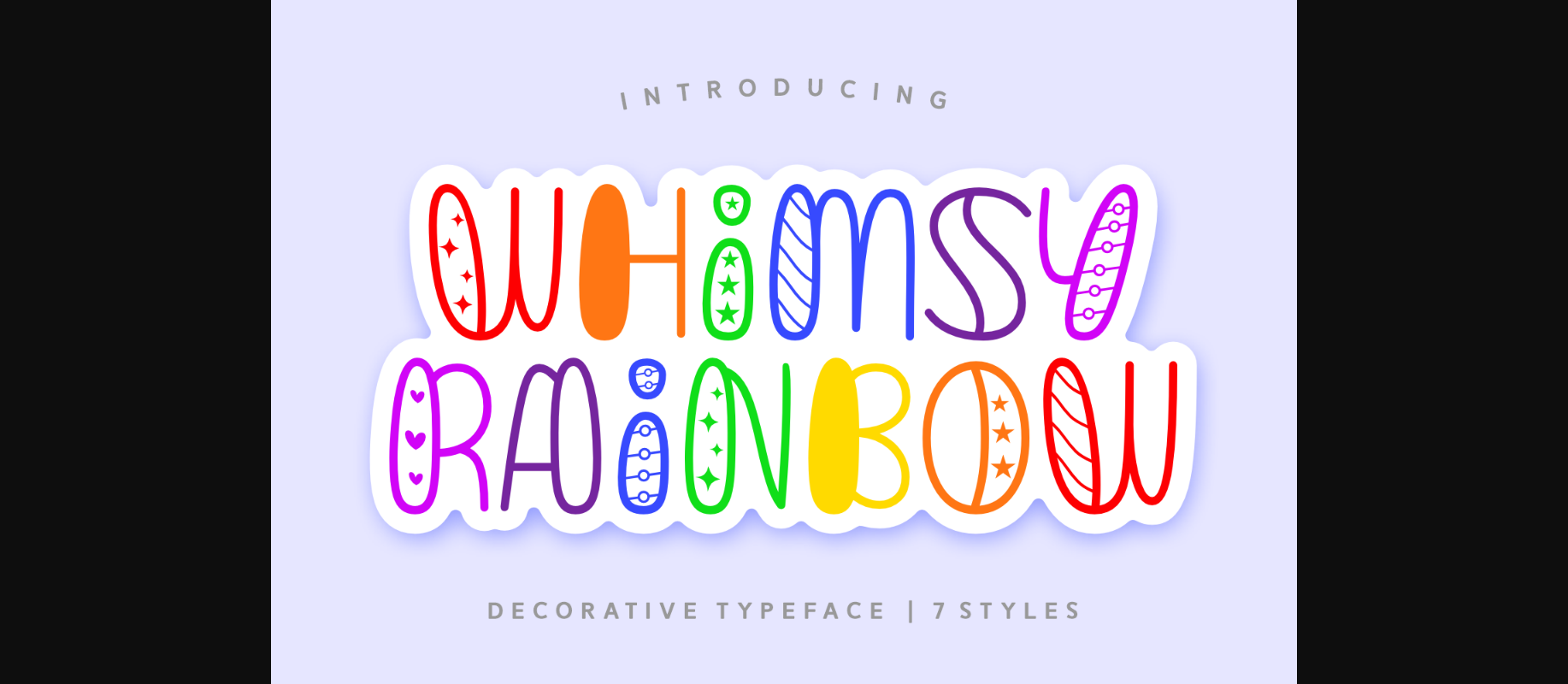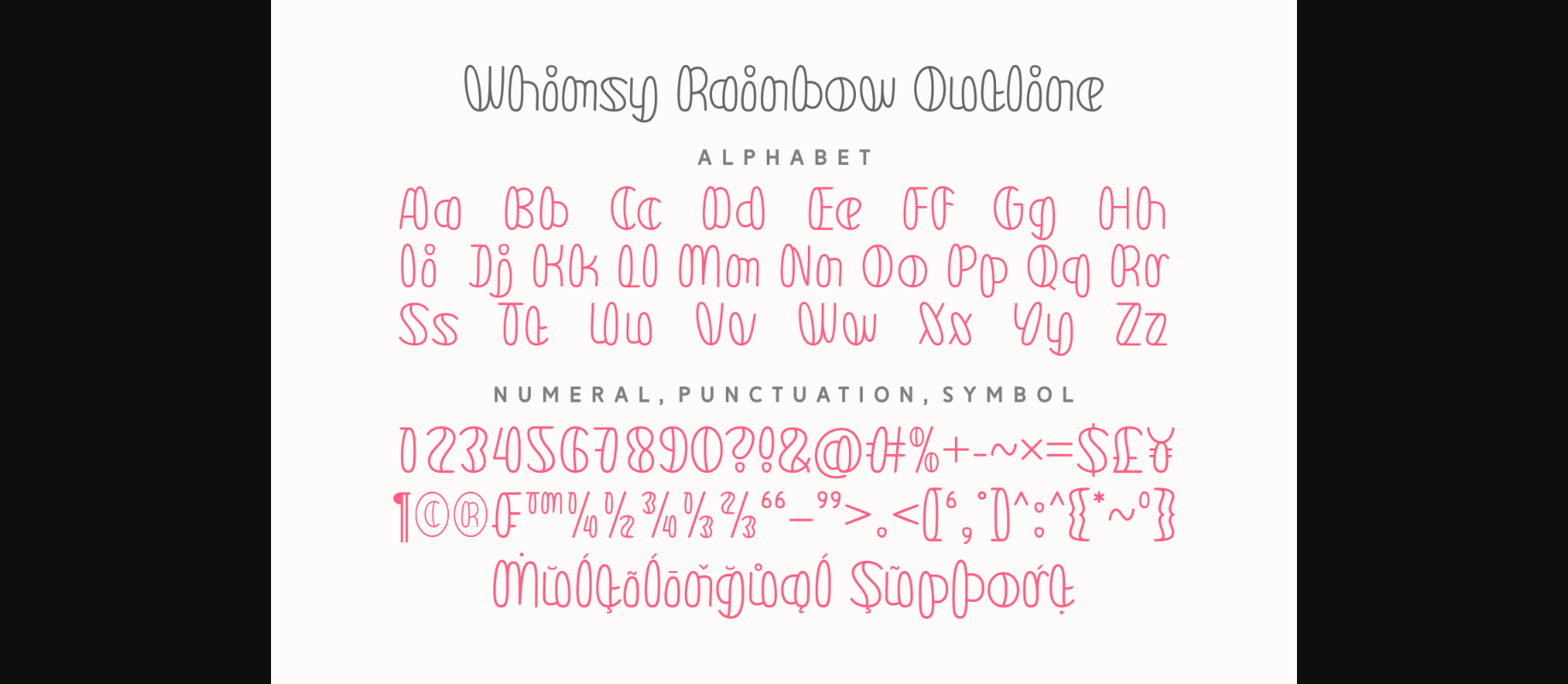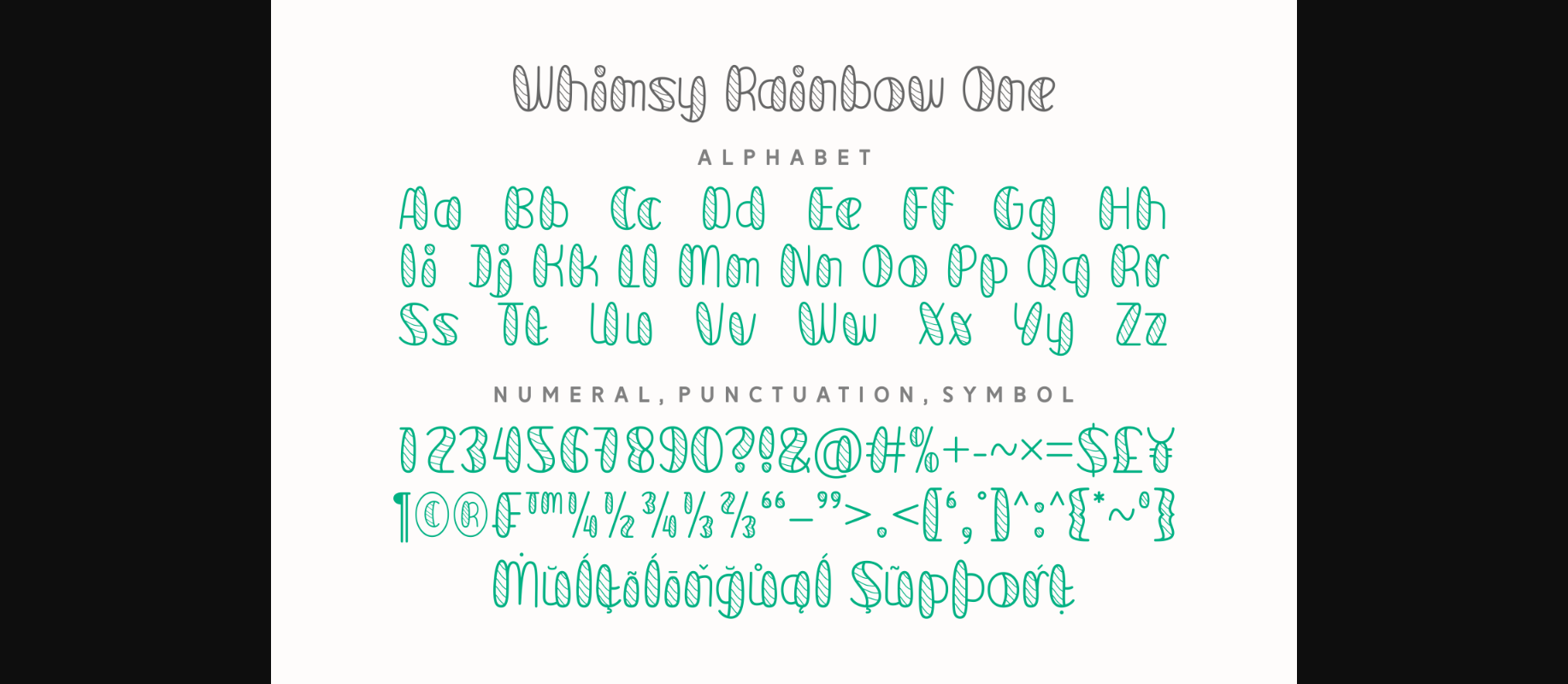
About Whimsy Rainbow Font
Whimsy Rainbow is a whimsical decorative font that adds a touch of enchantment to your designs. With its delightful collection of letters decorated with hearts, stars, and intricate lines, this font brings a playful and romantic flair to any project. Each character is meticulously crafted to evoke a sense of joy and wonder, making it perfect for invitations, greeting cards, and other creative endeavors. Let Whimsy Rainbow add a sprinkle of magic to your typography and captivate hearts with its charming and elegant style.